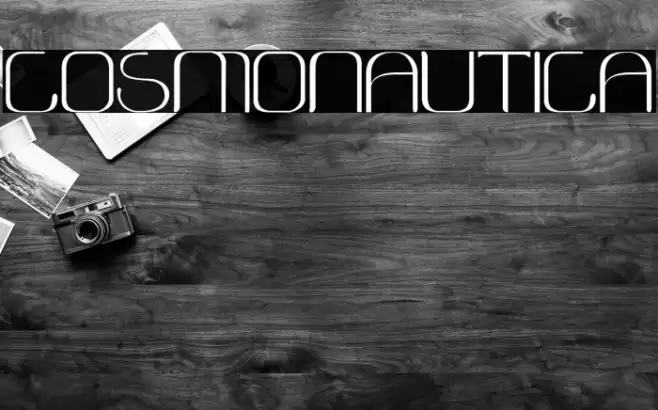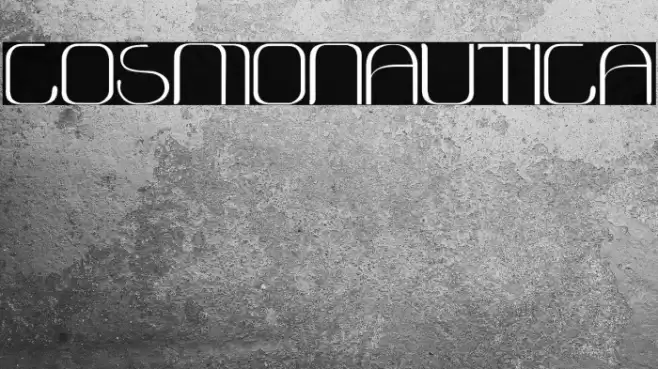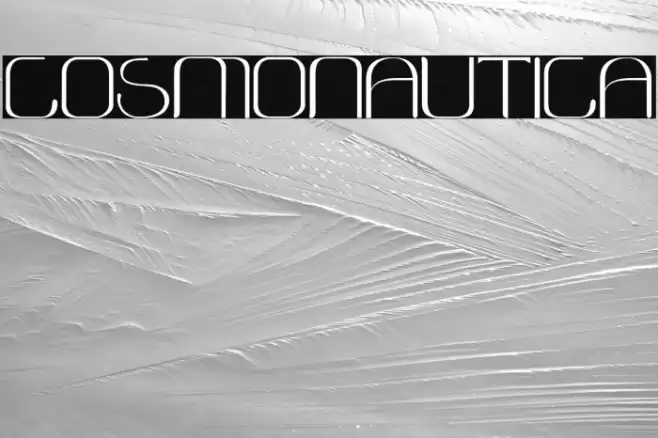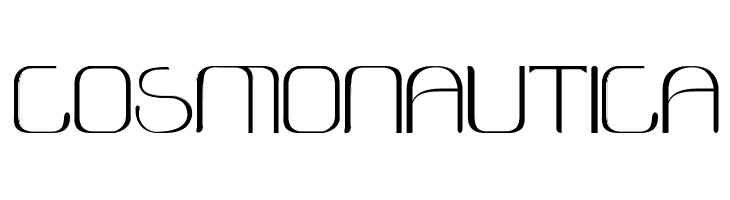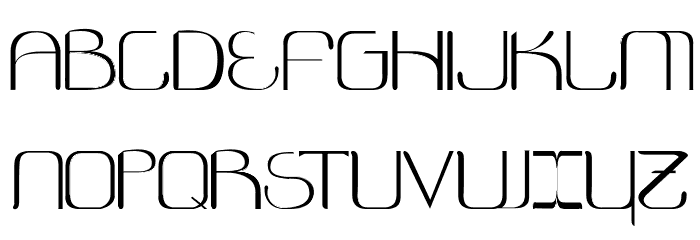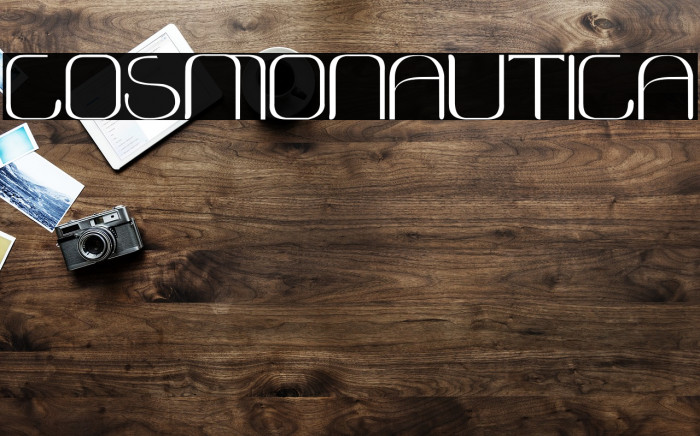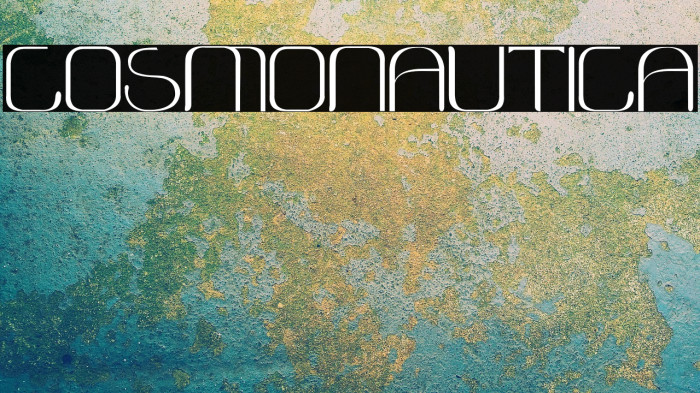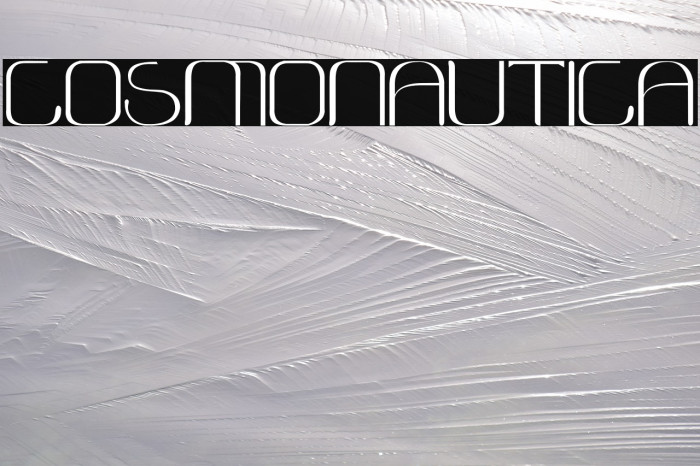
Cosmonautica Font
Cosmonautica Description
This font features a futuristic and sleek design, characterized by its thin, elongated letterforms and unique geometric shapes. The uppercase letters exhibit a modern aesthetic with clean lines and subtle curves, giving it a sophisticated and avant-garde appearance. The lowercase letters maintain the same stylistic approach, ensuring consistency across the typeface. The numerals are distinct and align well with the overall design, while the special characters add a touch of elegance and functionality. This font's minimalistic yet striking style makes it suitable for contemporary projects that require a touch of innovation and creativity.
A futuristic and sleek font with thin, elongated letterforms and geometric shapes from Uncategorized fonts.
- Proposed Projects: Ideal for sci-fi themed designs, modern branding, tech startups, and innovative product packaging.
- Overall Style: Futuristic
- Use Case: Headlines, Logos, Branding